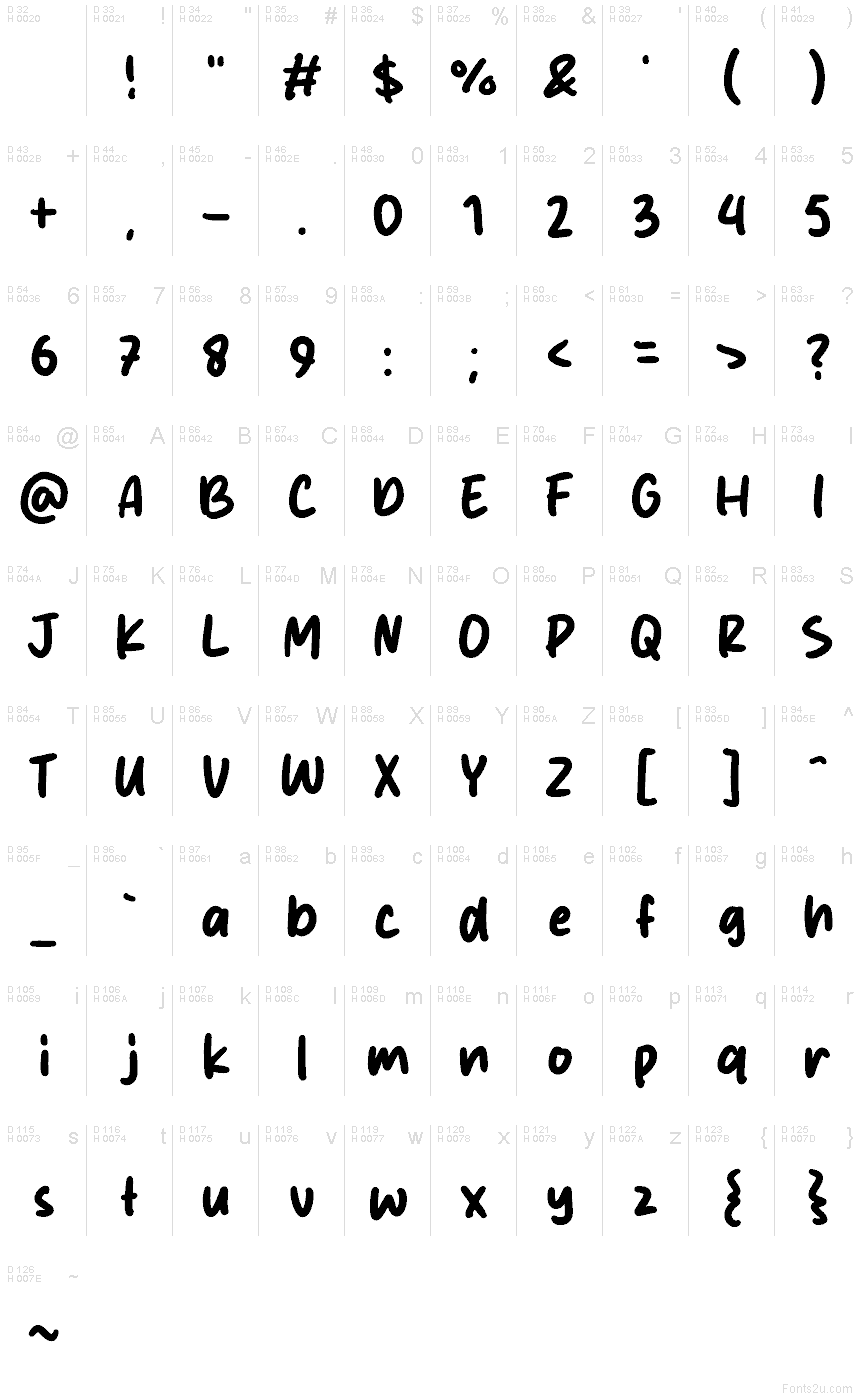
Pancakes Cream
Pancakes Cream font designed by Origin Type is a handwritten typeface created with thick strokes that resemble brush tips. The font has a contemporary aesthetic and inviting warmth best expressed through its casual, energetic flow and lively texture.